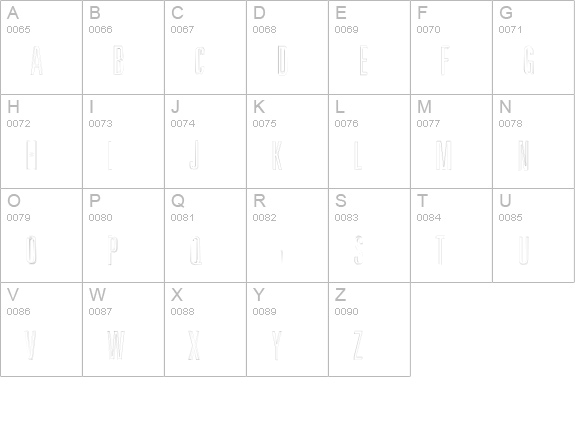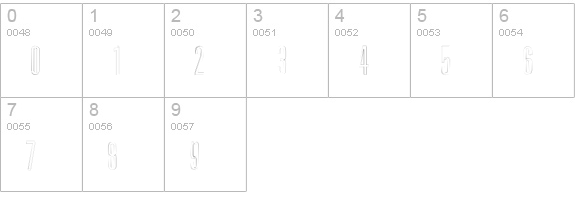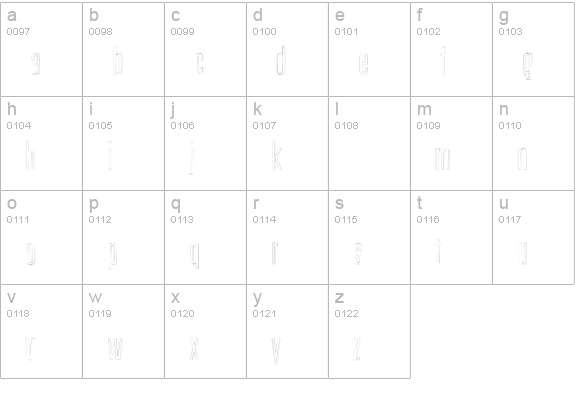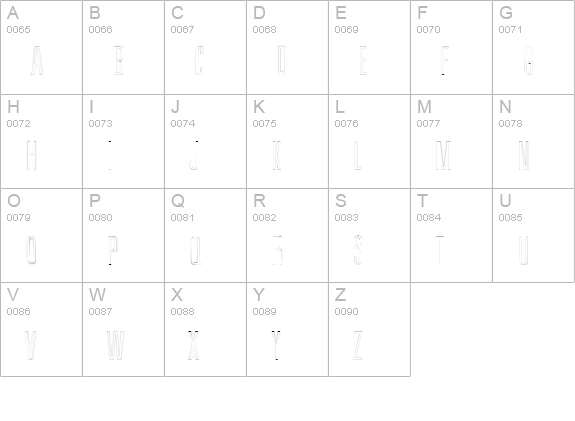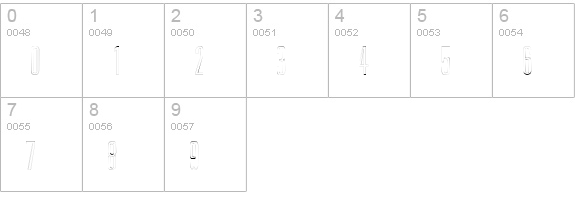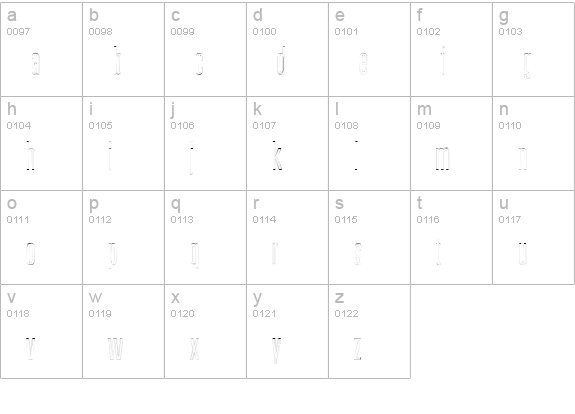
Fury-Open Font Details
Fury-Open font is a striking and modern typeface that exudes energy and dynamism. With its bold lines and sharp edges, this font is perfect for making a statement in your designs. The open and airy feel of Fury-Open adds a touch of sophistication, making it versatile for various projects. Whether you're designing a poster, logo, or website, Fury-Open will surely captivate your audience. The best part? Fury-Open font is completely free to download at FontsMarket.com. You can easily access this stylish font and elevate your designs without any cost. Don't miss out on the opportunity to enhance your projects with the sleek and impactful Fury-Open font, available for free at FontsMarket.com.